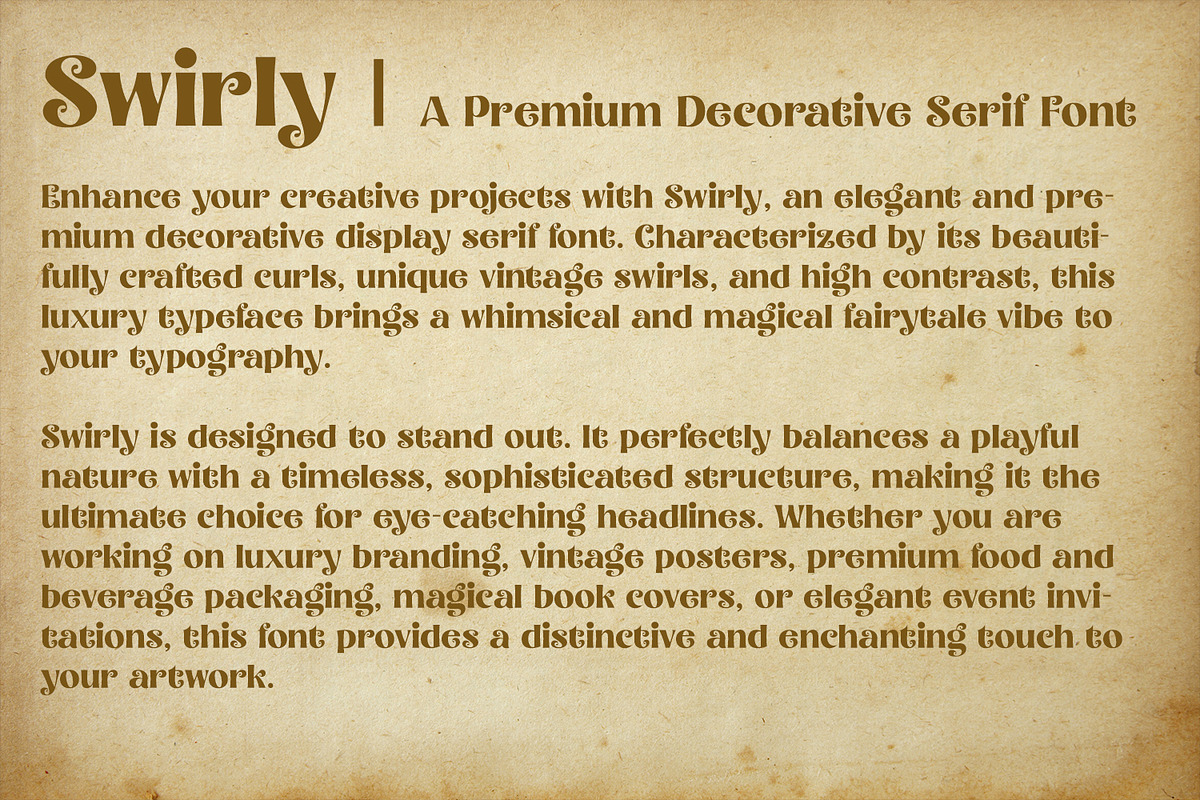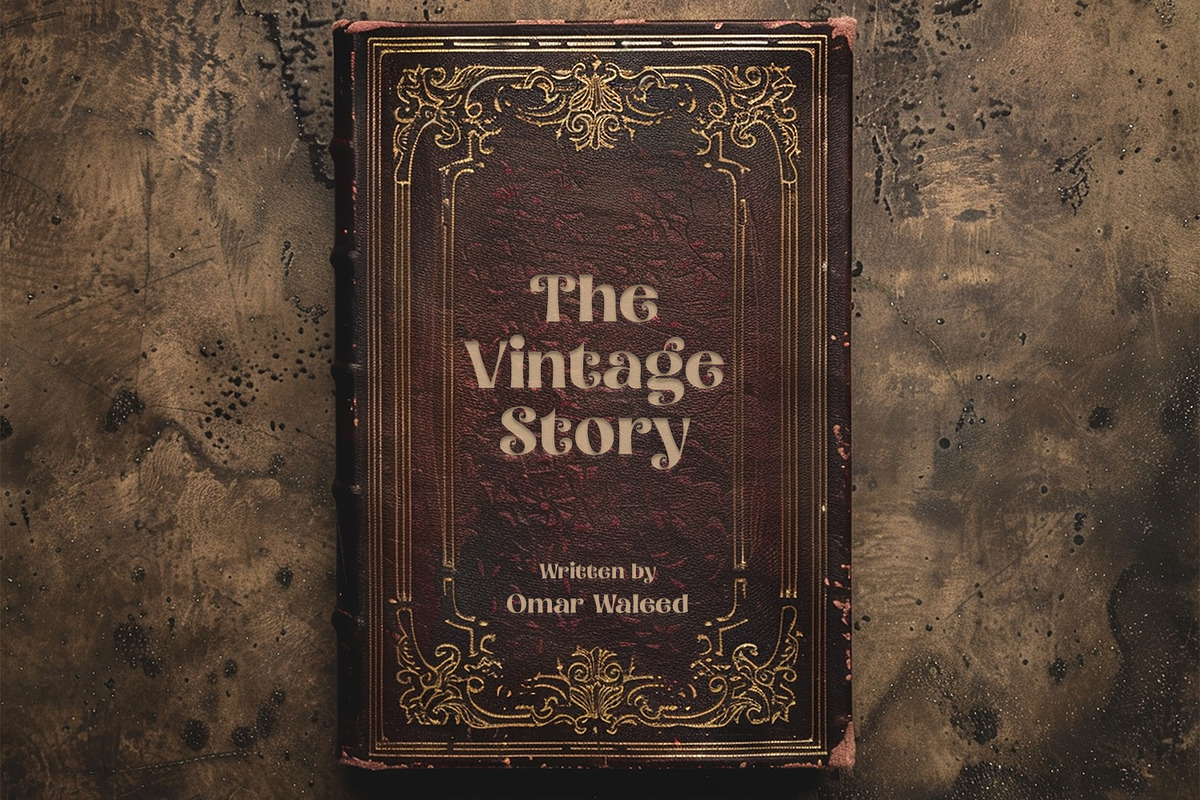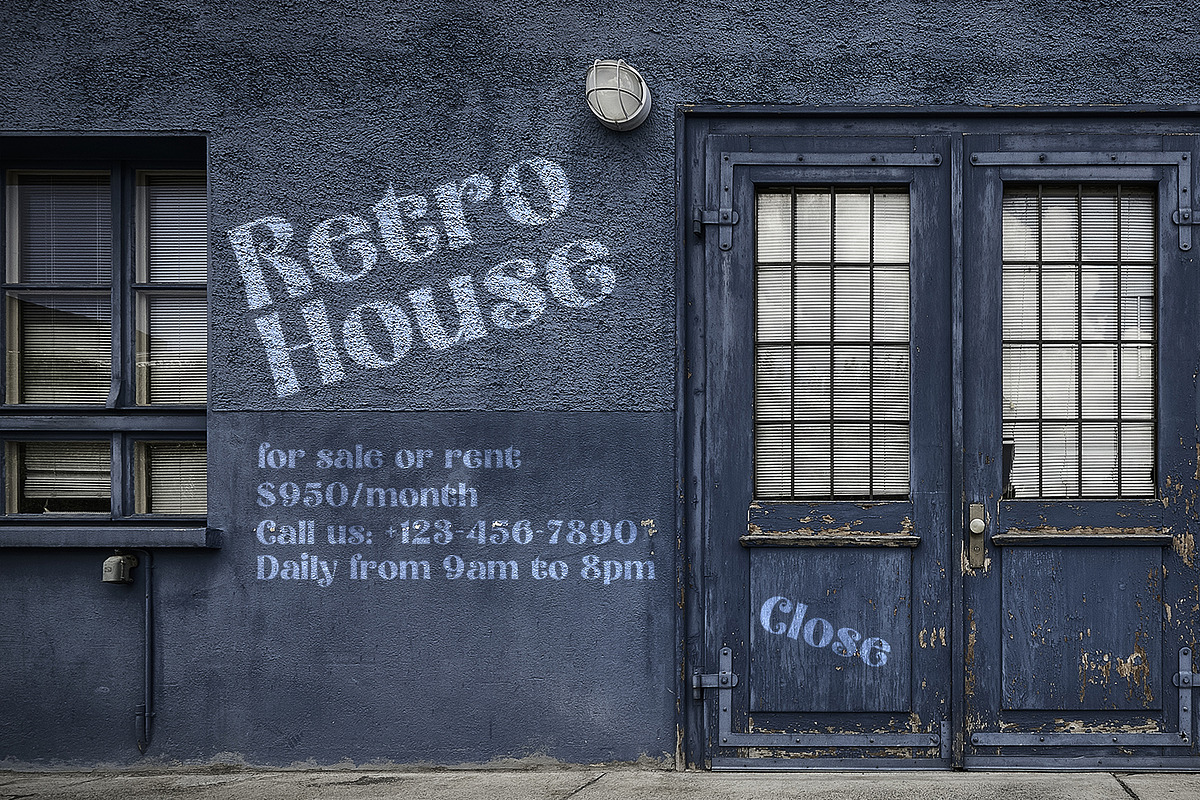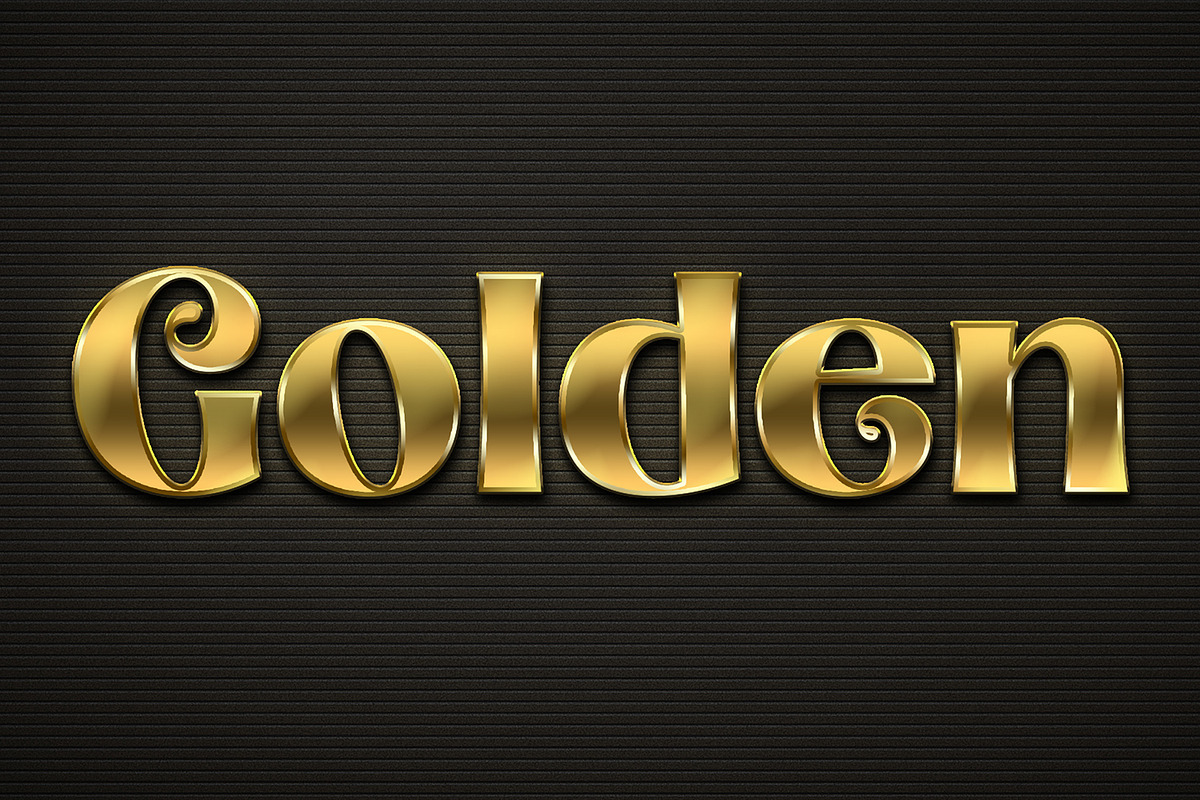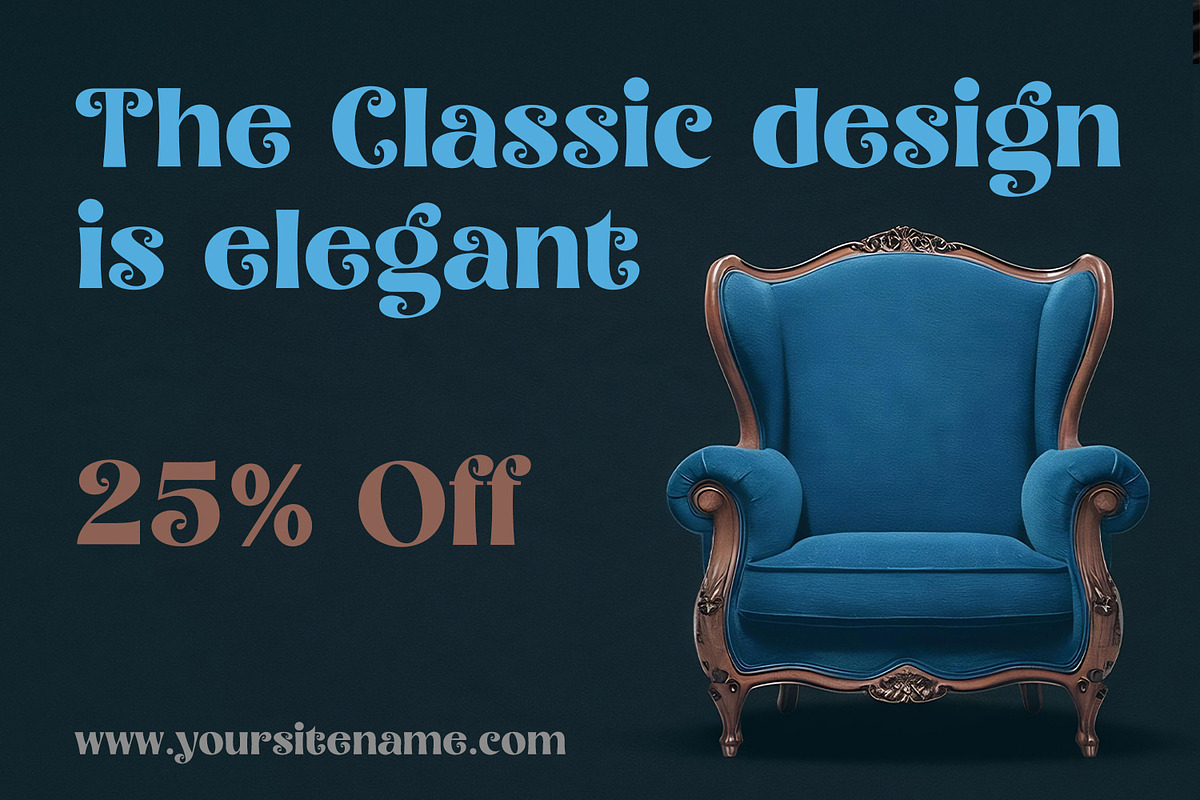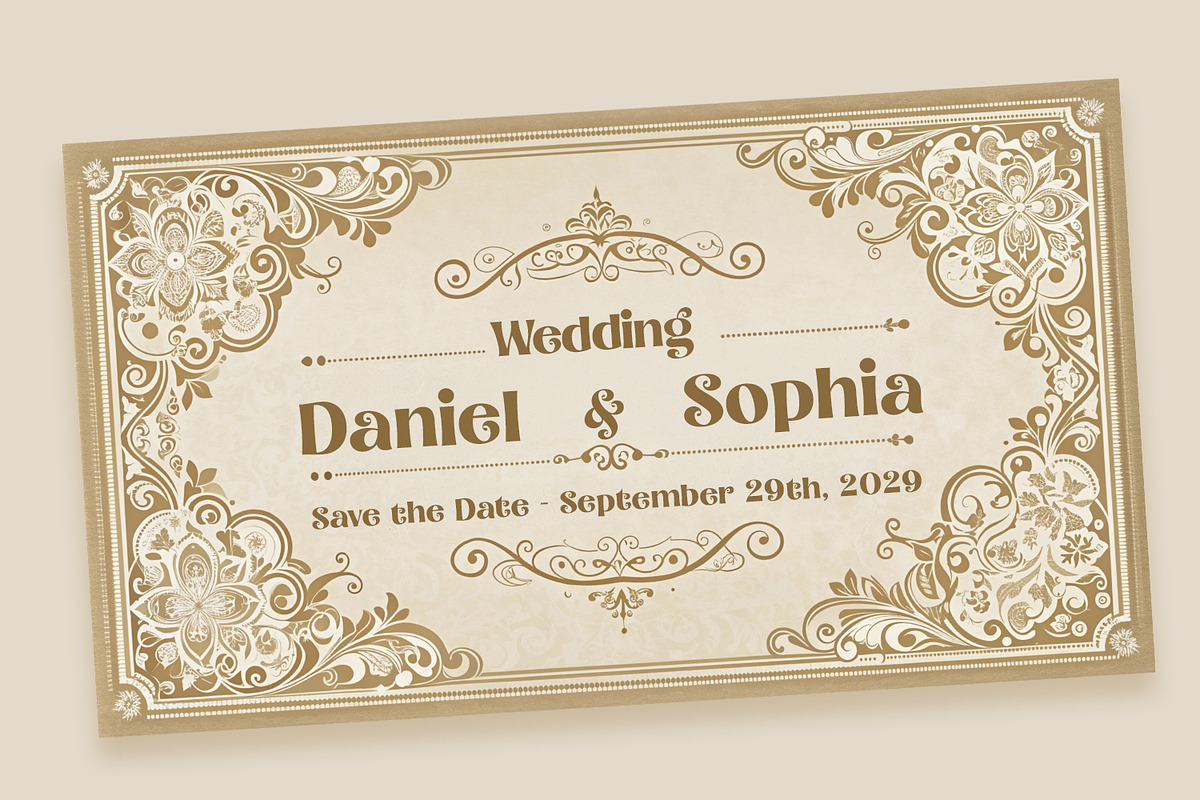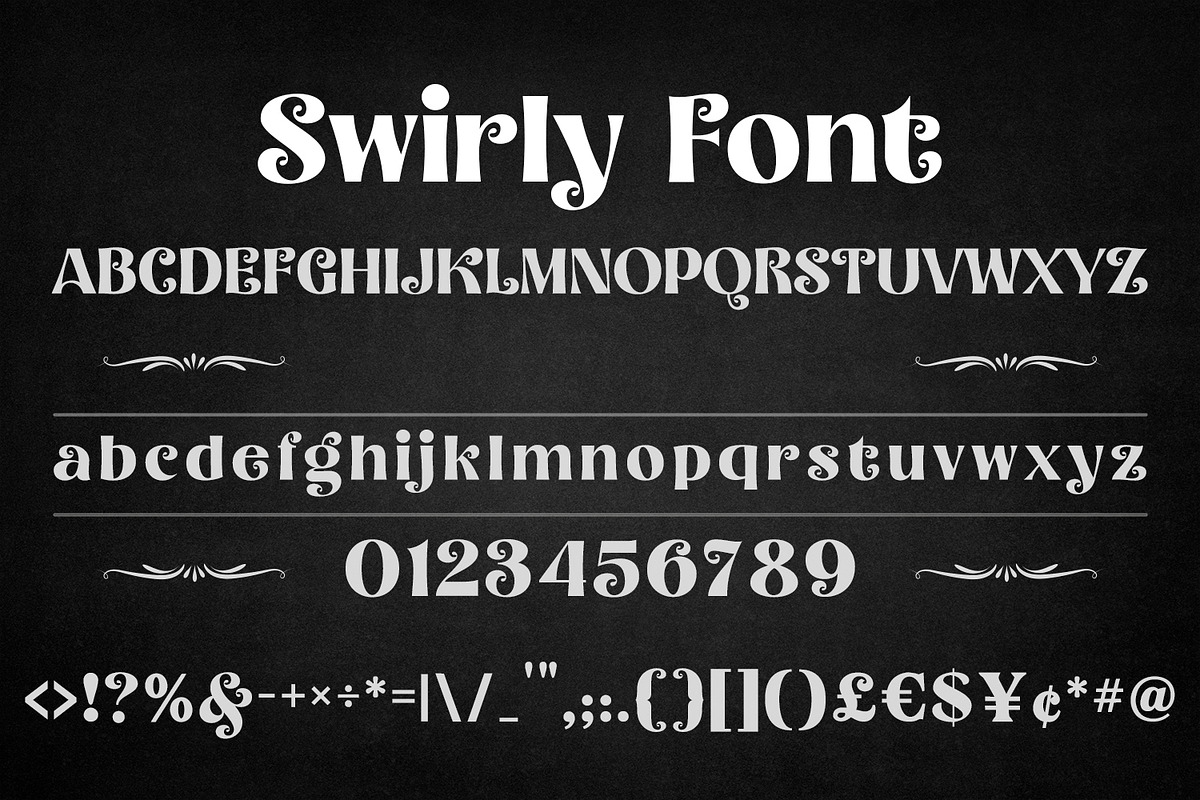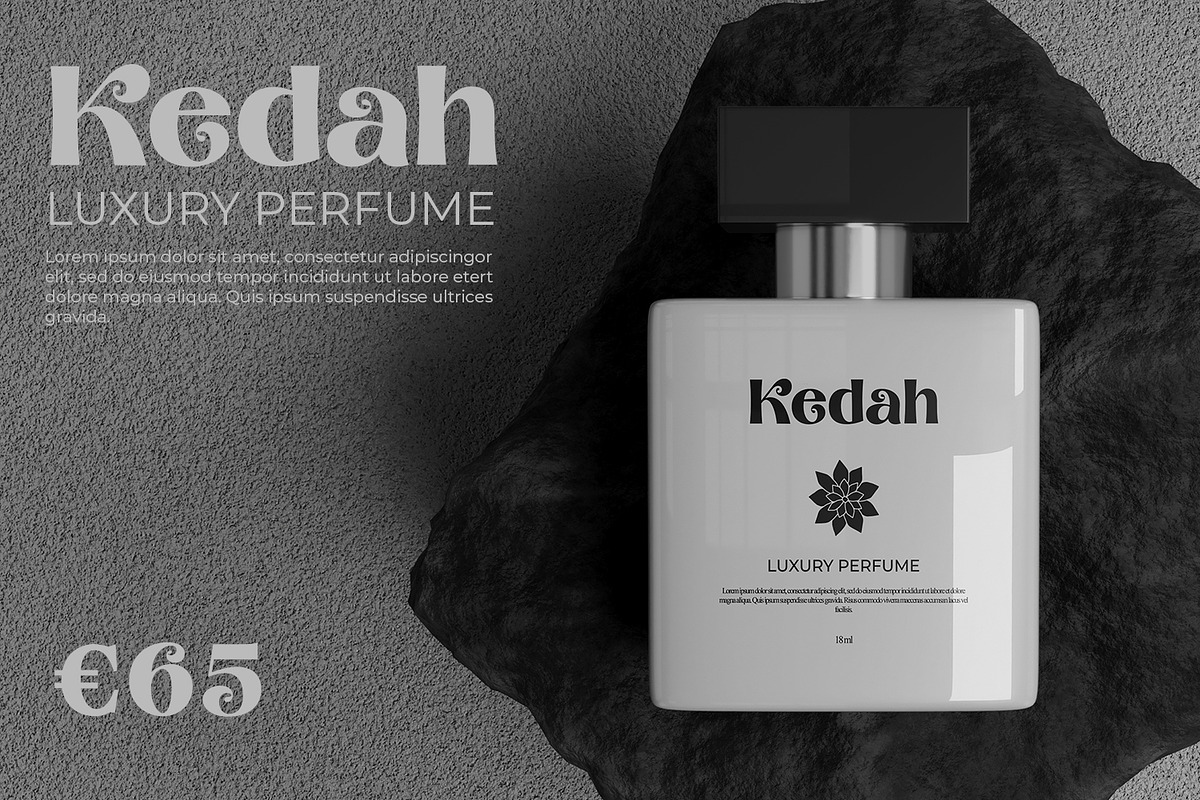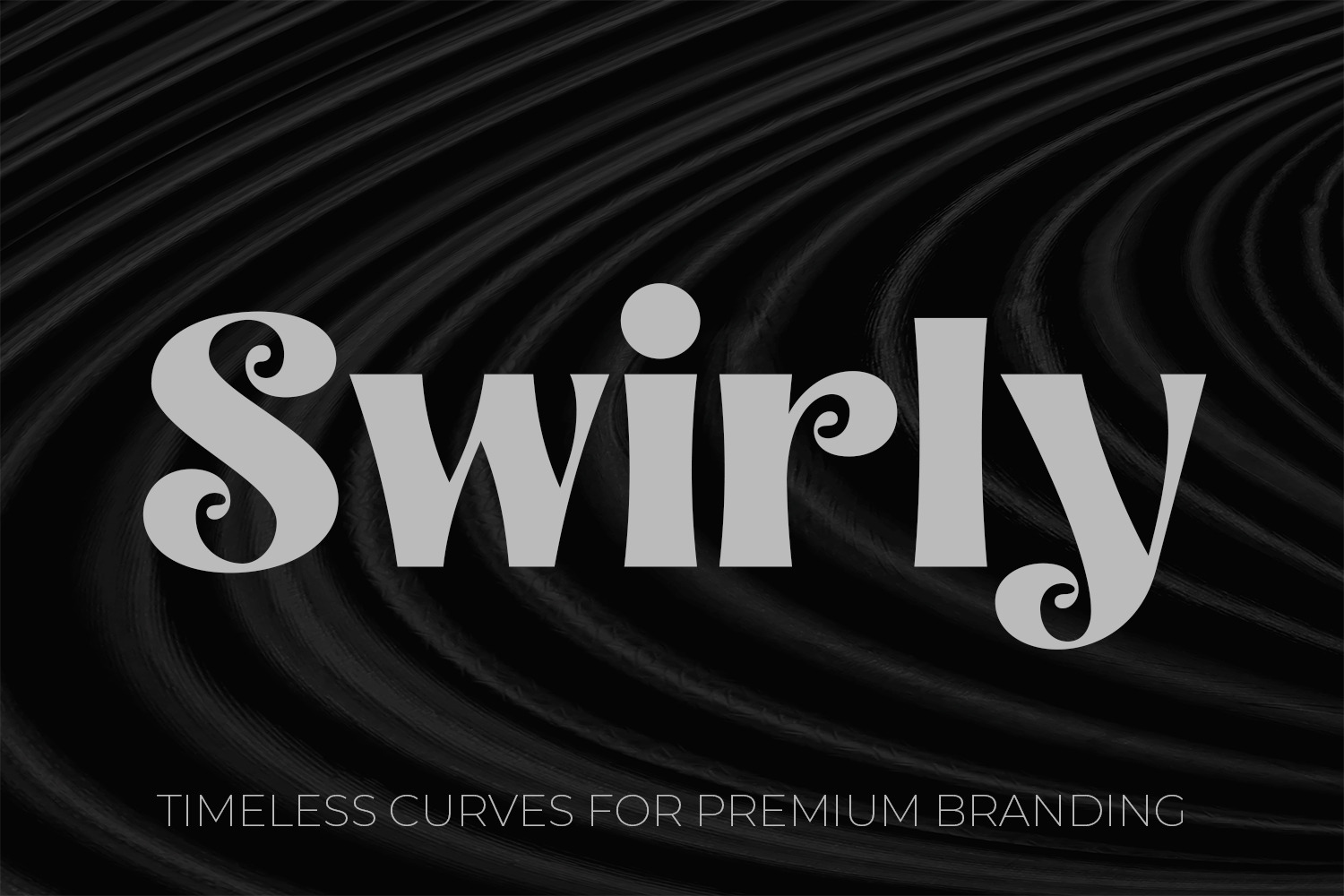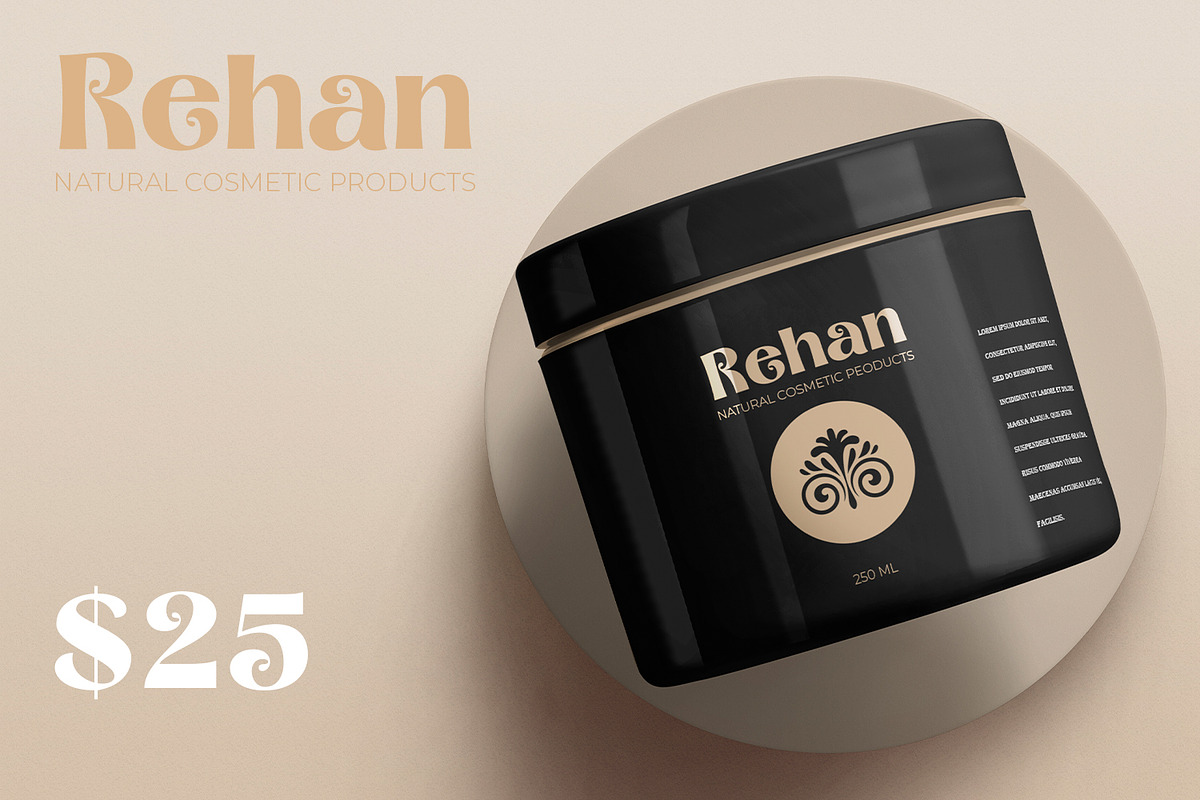
Swirly Elegant Vintage Display Font
Introduce Swirly, a premium decorative serif font that perfectly blends elegant sophistication with a whimsical, vintage charm. Characterized by its beautifully crafted curls, unique swirls, and striking high contrast, this luxury typeface brings a magical, fairytale vibe to any design project.
Swirly is designed to stand out. It balances a playful nature with a timeless, classic structure, making it the ultimate choice for eye-catching typography and headlines. Whether you are working on luxury branding, elegant wedding invitations, premium cosmetic packaging, magical book covers, or retro signage, this font provides a distinctive and enchanting touch to your artwork.